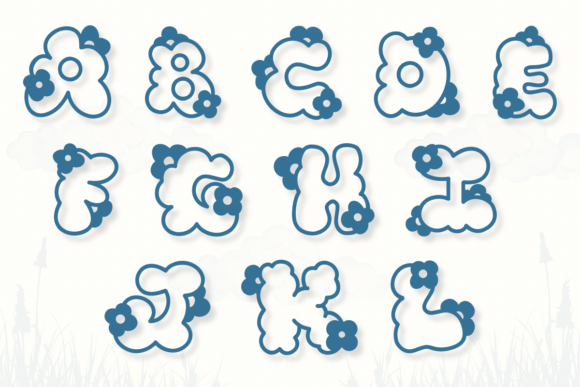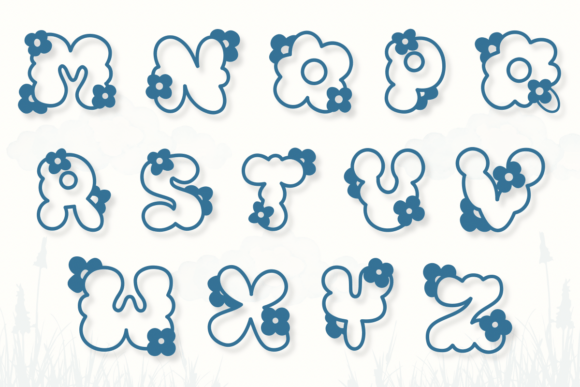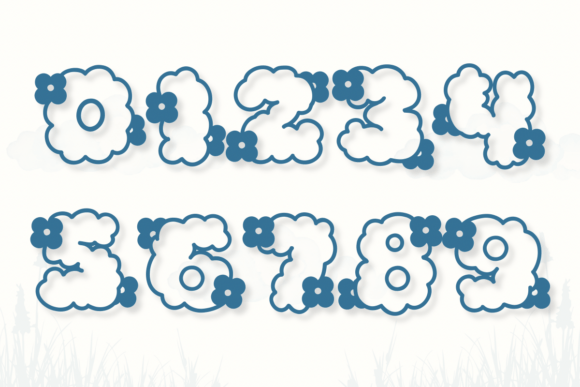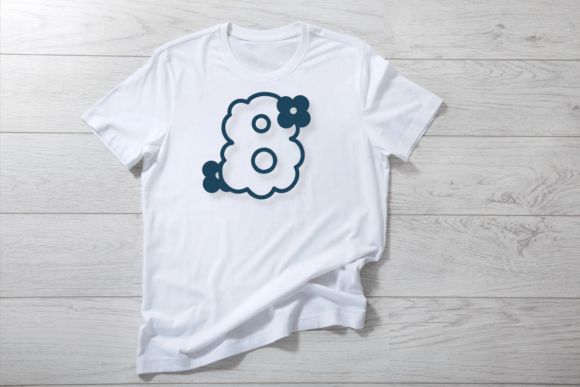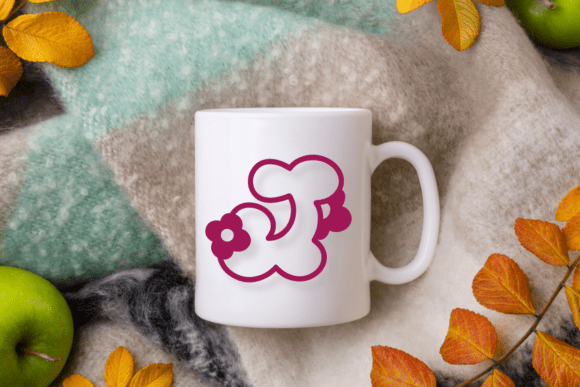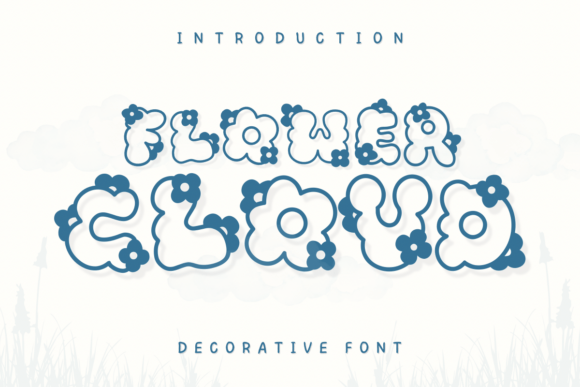
Introducing Flower Cloud Font: The Perfect Decorative Font for Designers and Crafters
Are you a designer or crafter looking for a unique and creative font to add a personal touch to your projects? Look no further than Flower Cloud Font! This beautiful decorative font is perfect for taking notes, writing a diary, or making greeting cards, and its versatility means it can be used for a wide range of designs, from banners and content to mugs, cards, shirts, stationery, social media posts, and more.
What is Flower Cloud Font?
Flower Cloud Font is a decorative font that features intricate and delicate floral designs. Its whimsical and romantic style makes it perfect for adding a touch of elegance and sophistication to any project. The font is designed to be easy to read and use, making it accessible to designers and crafters of all skill levels.
Uses for Flower Cloud Font
One of the best things about Flower Cloud Font is its versatility. Here are just a few ideas for how you can use this beautiful font:
• Journaling and Diary Writing: Add a personal touch to your journal or diary with Flower Cloud Font. Use it to write headings, titles, or even entire entries.
• Greeting Cards: Create beautiful and unique greeting cards for special occasions like birthdays, weddings, and holidays.
• Banners and Signs: Use Flower Cloud Font to create eye-catching banners and signs for parties, events, or even your business.
• Social Media Graphics: Add a touch of elegance to your social media graphics with Flower Cloud Font. Use it to create eye-catching posts, quotes, or even Instagram stories.
• Merchandise: Use Flower Cloud Font to create beautiful and unique merchandise like mugs, shirts, and tote bags.
• Stationery: Create custom stationery like notebooks, journals, and greeting cards with Flower Cloud Font.
Why Choose Flower Cloud Font?
So why choose Flower Cloud Font over other decorative fonts? Here are just a few reasons:
• Unique and Eye-Catching: Flower Cloud Font is truly one-of-a-kind. Its intricate and delicate designs will add a touch of elegance and sophistication to any project.
• Versatile: As we’ve already discussed, Flower Cloud Font can be used for a wide range of projects, from journaling and greeting cards to banners and merchandise.
Tips for Using Flower Cloud Font
Here are a few tips for getting the most out of Flower Cloud Font:
• Experiment with Colors: Don’t be afraid to experiment with different colors and color combinations when using Flower Cloud Font.
• Mix and Match: Try mixing and matching Flower Cloud Font with other fonts and design elements to create a unique look.